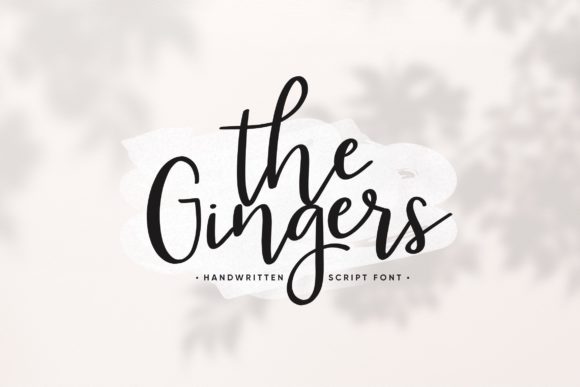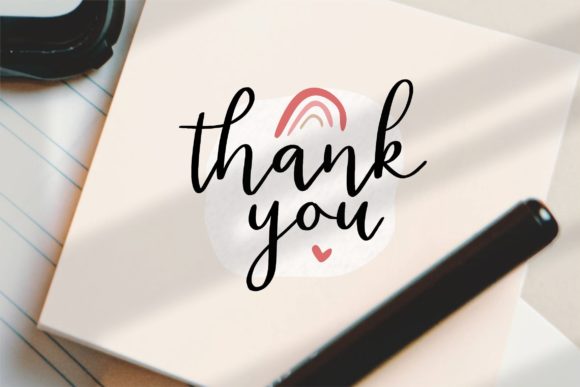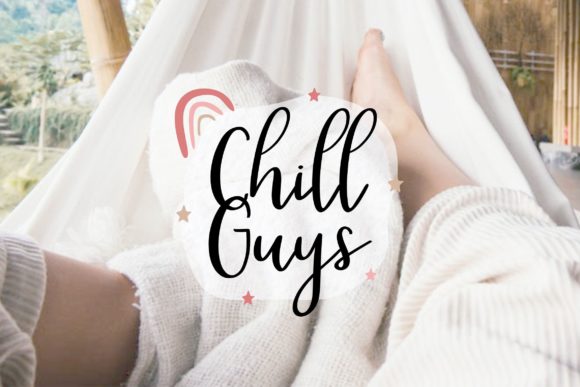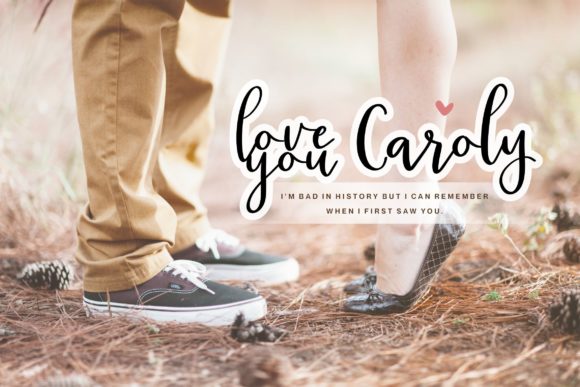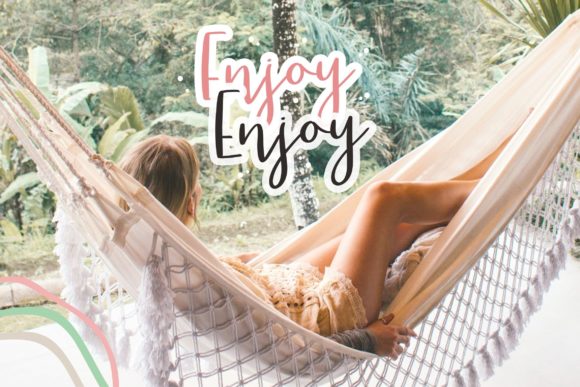
About The Gingers Font
The Gingers is an elegant script font with a contemporary atmosphere and impeccable form, inspired by timeless classic calligraphy. Not too thin and not too thick, balanced and varied, this font was designed to enhance the beauty of your projects.